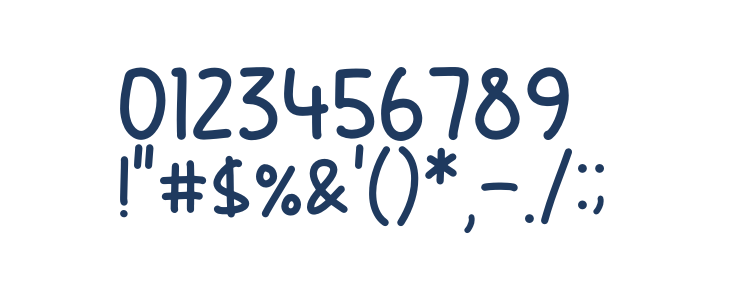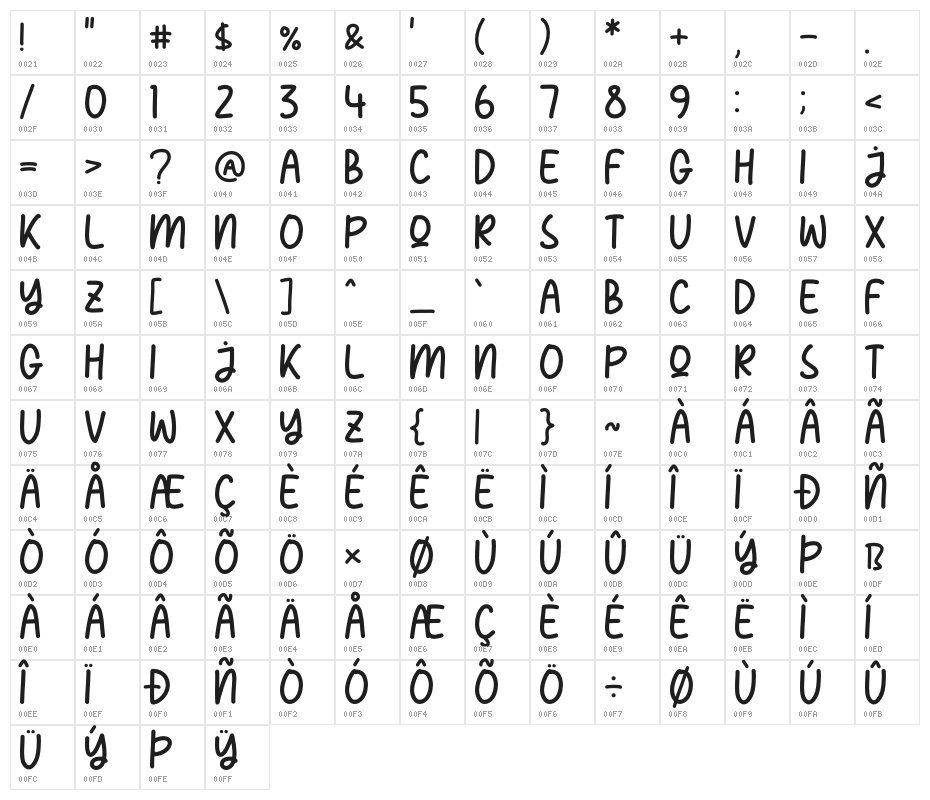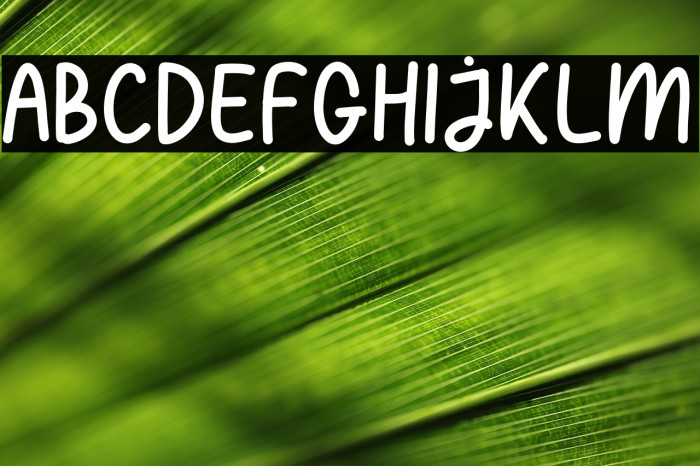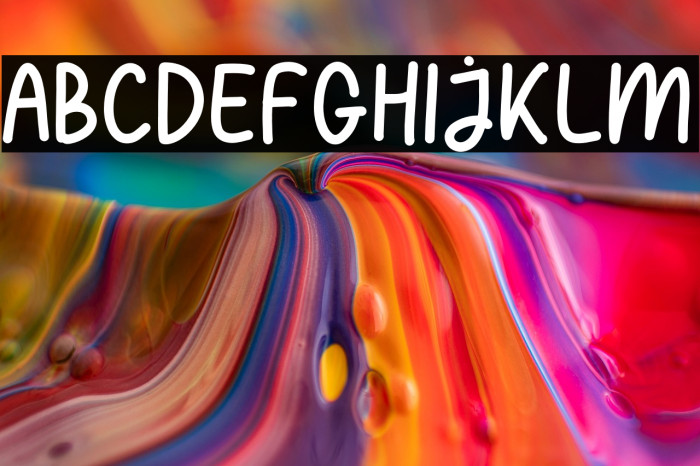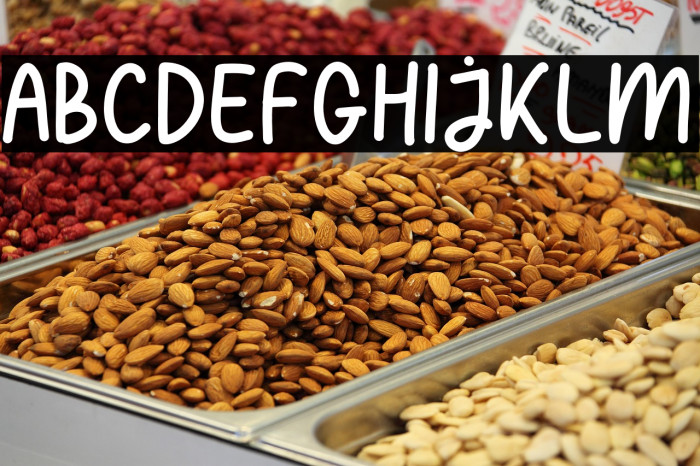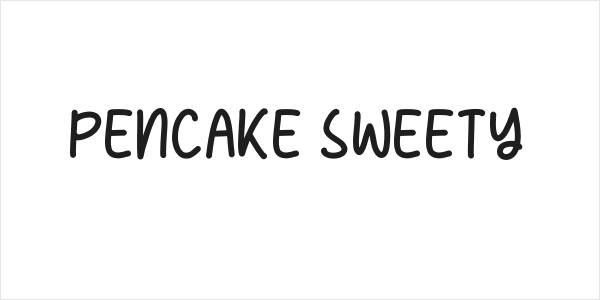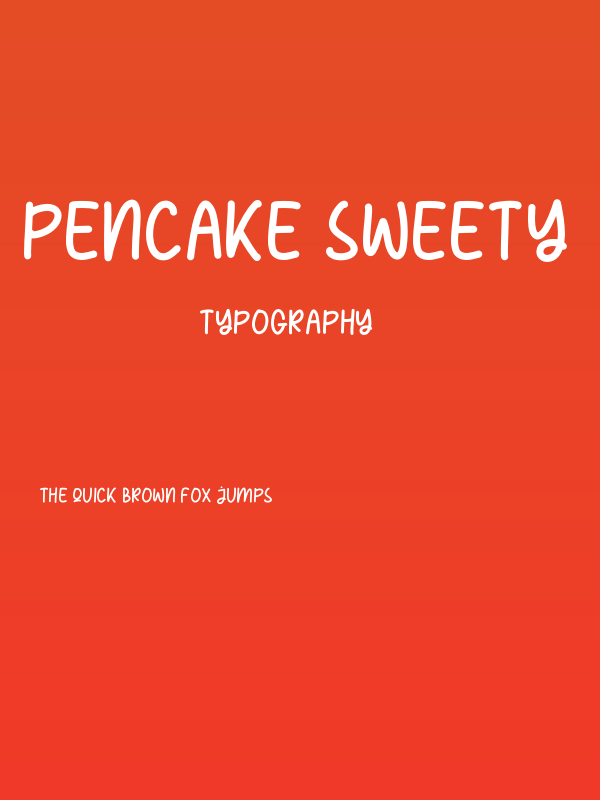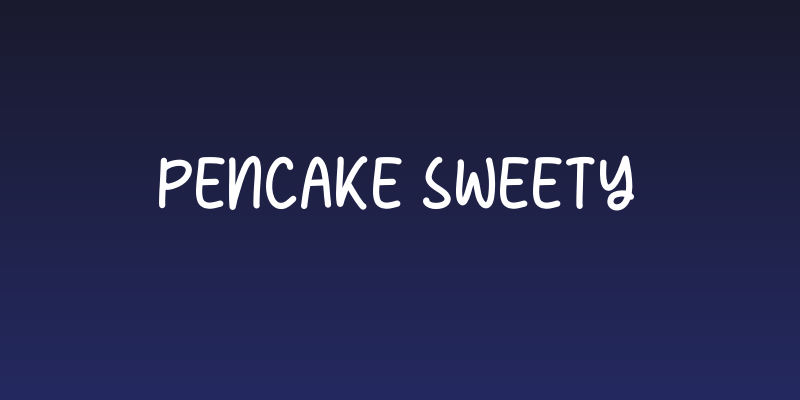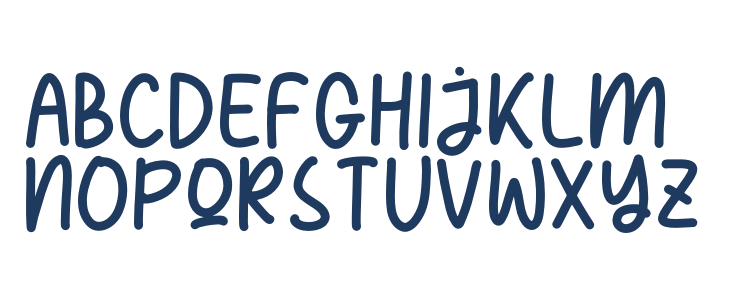
PENCAKE SWEETY Font
PENCAKE SWEETY Description
This playful and whimsical font features rounded, hand-drawn characters that exude a friendly and approachable vibe. The letters are slightly irregular, adding to the casual and informal feel. The strokes are consistent in thickness, providing a uniform appearance across all characters. The font includes both uppercase and lowercase letters, numerals, and a variety of special characters, making it versatile for different uses. Its charming style is perfect for projects that aim to convey warmth and creativity.
| Use Case | Logos, Headlines, Informal Texts |
| Proposed Projects | Ideal for children's books, greeting cards, playful branding, and social media graphics. |